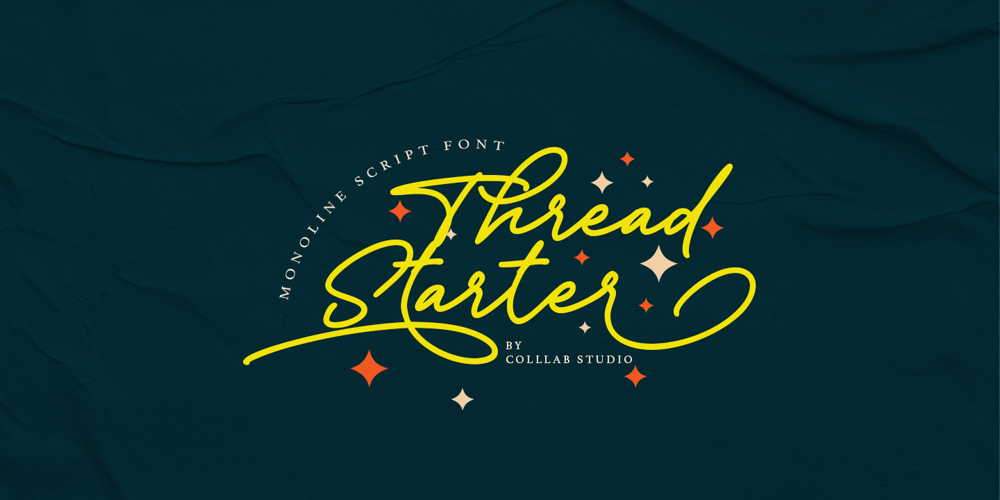
Thread Starter Font Family was designed by Muh. Aswar, Awaluddin Syarif and published by Colllab Studio. Thread Starter contains 1 styles and family package options. “Hi there, thank you for passing by. Colllab Studio is here. We crafted best collection of typefaces in a variety of styles to keep you covered for any project that comes your way!Not being able to communicate trustworthiness, authority and professionalism? Is your brand lacking personality too?That’s where Thread Starter come in. Our fonts have been exclusively designed to communicate trustworthiness, authority, and professionalism. We are here to serve you with the right fonts to help your brand stand out.Use Thread Starter to communicate trustworthiness, authority and professionalism straight into your audience’s heads. Your ideal clients will love the unique and high perceived quality of your brand on its own merit.A Million Thankswww.colllabstudio.com